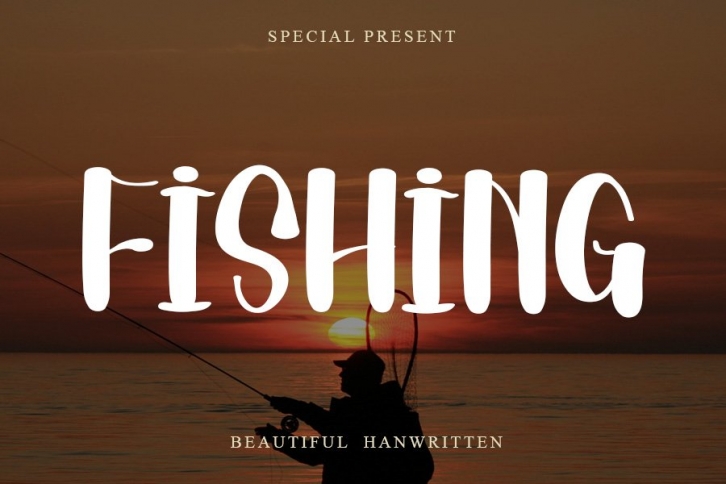
Fishing is a trendy and unique font with an authentic style. It was designed by KINSTUDIO and it's a great choice for creative people who need such a font. It was released on July 20, 2021 and the file size is 15.38 MB. Fishing will add an organic vibe to any design idea!